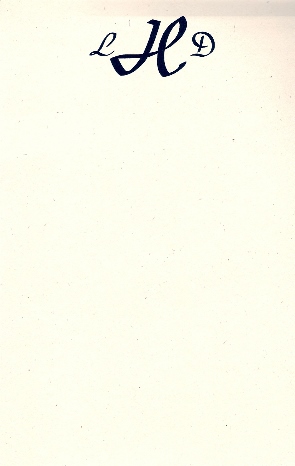
Recently
I was browsing in a specialty stationary store (they are great places
to get creative inspiration) and was reminded of the simple, classic
elegance of monogrammed stationary. It’s the perfect thing
for writing a special note, thank you or otherwise, when it’s
really the heartfelt message that is the most important thing. Creating
your own is simple and easy with the elegant fonts available at LetteringDelights.com
Specific steps to this project are a little difficult, since paper
and software selections both make a difference. But I have put together
some general instructions that should see you through:
Select your stationary. The stock you print on can be a simple
cardstock which you then cut to size or pre cut, unprinted paper that you purchase
in a stationary, paper supply or even office supply store. For more elegance,
consider using a card that is embossed with a simple border.
In either standard word-processing software
(i.e. MS Word, Word Perfect) or a more technical designing or publishing
program (i.e. Corel Draw, Quark Express) set up your layout according
to the size of the paper you will be printing on. If you choose to
purchase pre-cut stationary, many times the manufacturer will include
layout and printing instructions, so refer to those if they are available. - Type
the initials you plan to use onto your layout and adjust the
font size appropriately. Here’s a hint if you are using
regular word processing software: If you want to layout the
initials, similar to the sample, with the large initial in
the middle, place each individual letter in a text box. This
gives you the flexibility to move each letter individually
and place them exactly where you want them in relation to one
another.
- Once you have the layout you want, just print
and trim (if necessary). Be creative in your placement and
package.
Delights Supreme 4 is coming! With 50 brand
new alphabets, 50 new Journaling Delights sets and over 100 fonts,
Delights Supreme 4 will be another amazing package. Here’s
a sneak peek at just a few of the new designs: